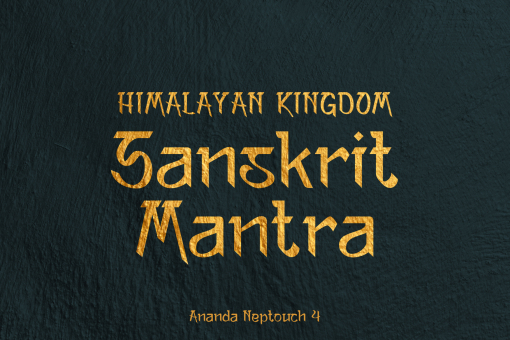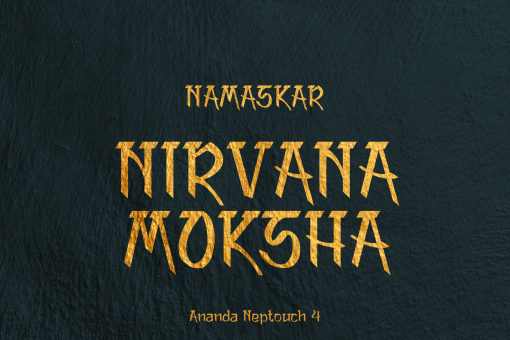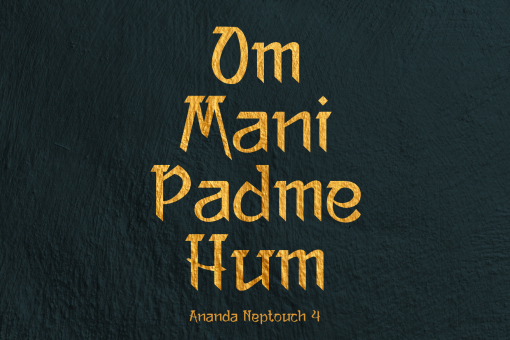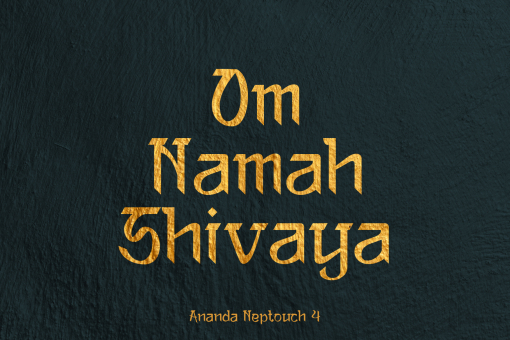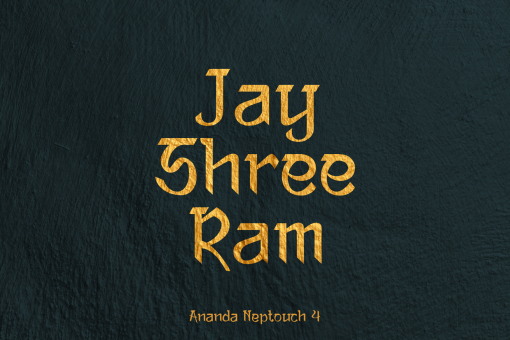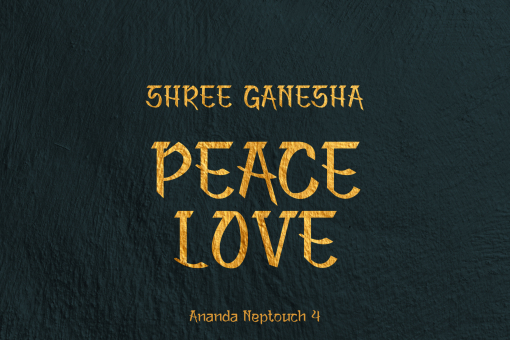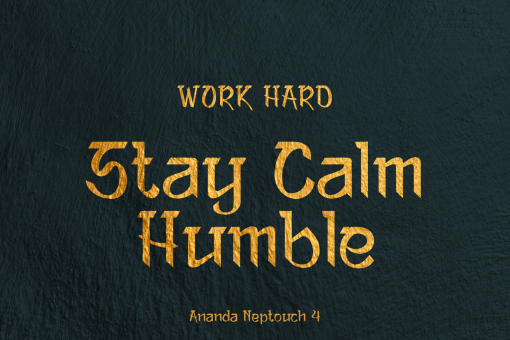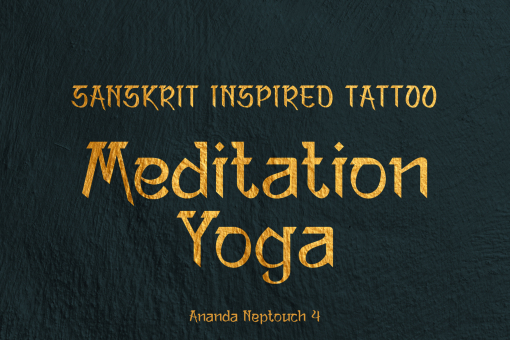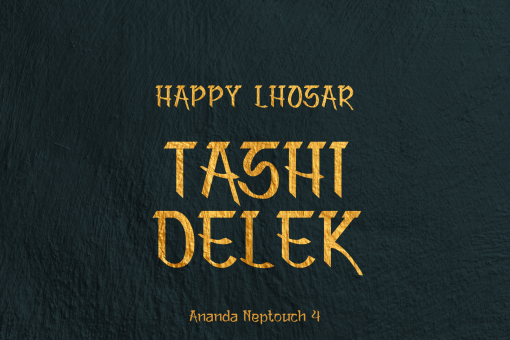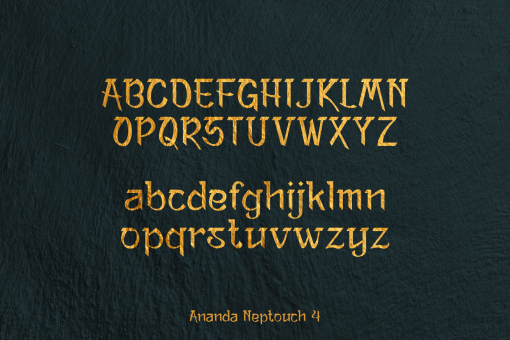
Ananda Neptouch 4
Devanagari Sanskrit inspired Calligraphy font - Ananda Neptouch 4 with uppercase and lowercase also with some Tibetan style touch.
Designer: Ananda K. Maharjan